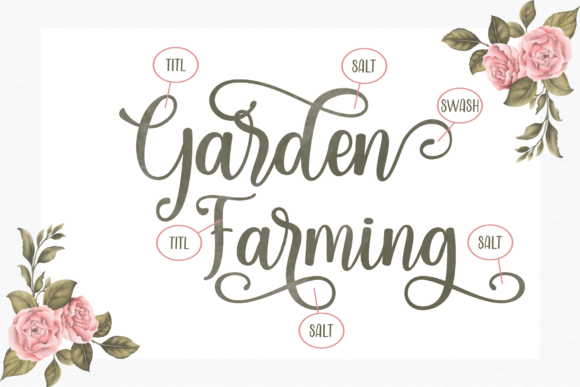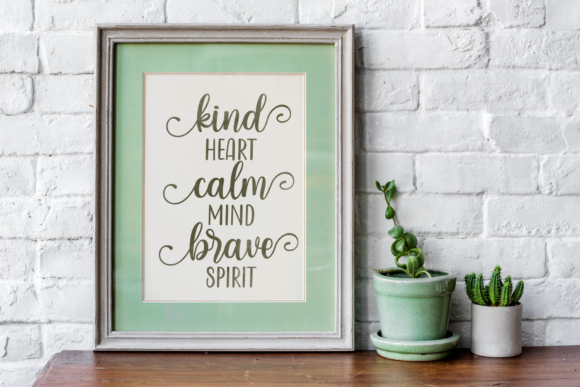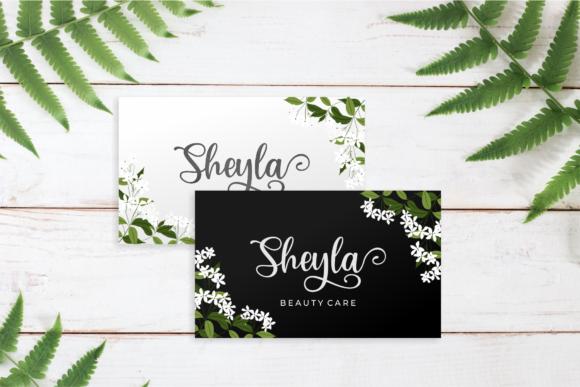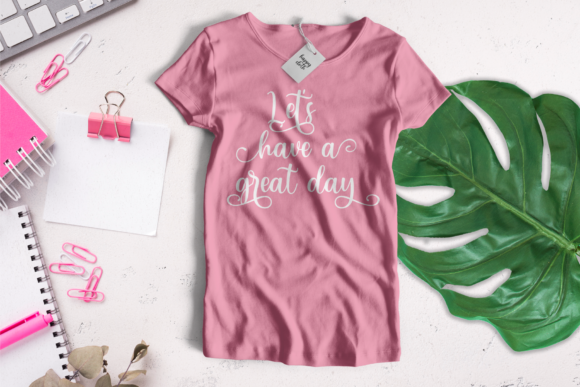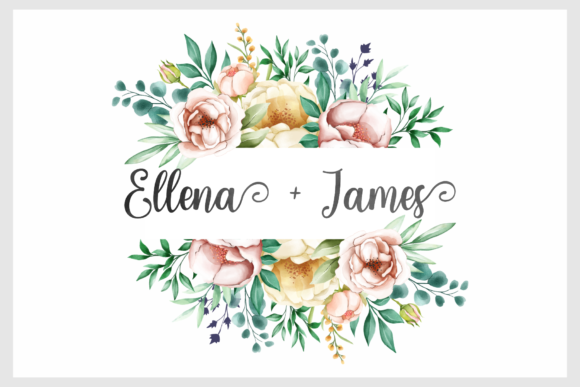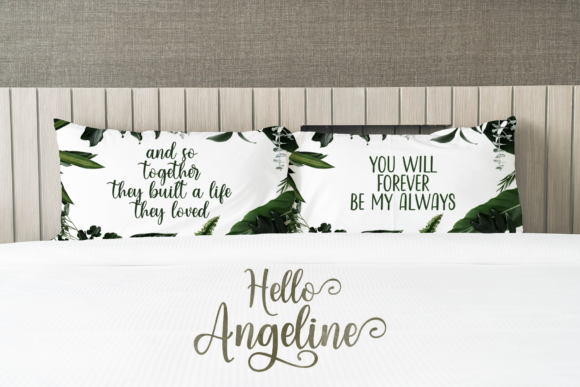
Introduction to Hello Angeline Font
Hello Angeline is a beautiful duo font.
It combines a gorgeous script style with a relaxed sans serif This versatile handwritten font has a wide range of applications ranging from stationery to branding, and is guaranteed to add a modern touch to your next design.
Key Features of Hello Angeline Font
Why Choose Hello Angeline Font?
Hello Angeline Font offers exceptional quality and versatility, making it a valuable addition to your design toolkit. Whether you’re creating for personal projects or commercial use, Hello Angeline Font delivers professional results.